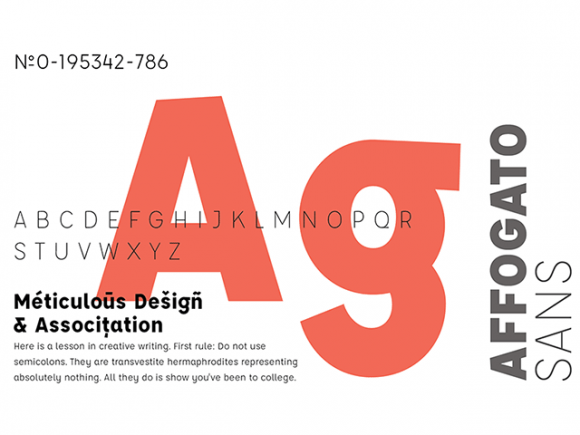
Download and enjoy this free affogato sans-serif typeface in 5 weights. Cool typeface to showcase your designs in a modern way. Go give some love to Freebies Bug for creating this top-notch typeface. Amaze your fellow designers and create stunning designs with this fancy font.